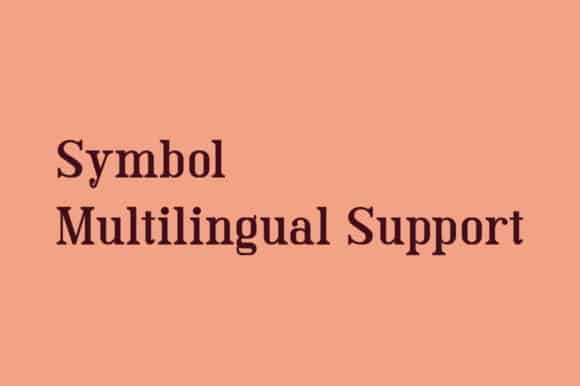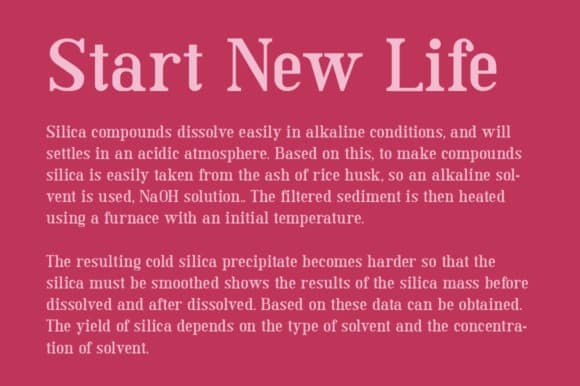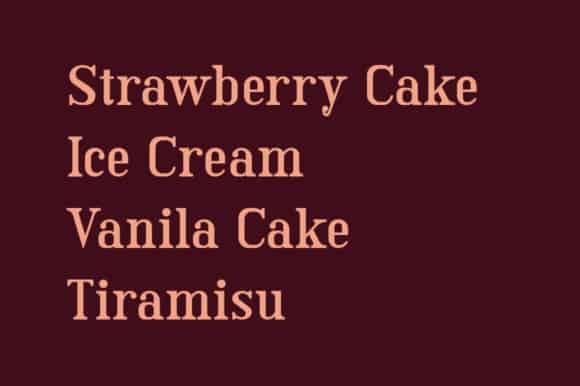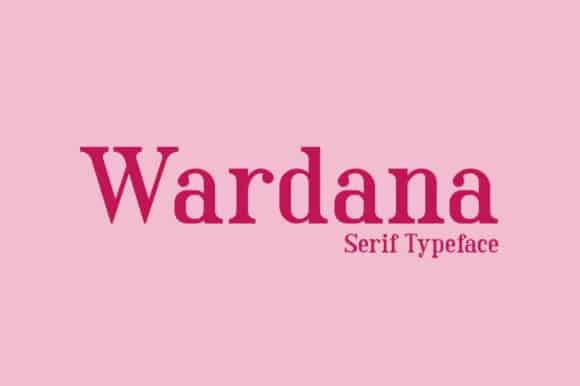
Wardana Serif Font
Wardana Serif Font is a new modern font family with versatility in creativity. Unique with its attractive Sharpness. Made from font designer named AmruID. And it’s a sophisticated serif typeface. Masterfully designed to become a true favorite, this font has the potential to bring each of your creative ideas to the highest level!
It is perfect for headline, logotype, apparel, invitation, branding, packaging, advertising and much more!